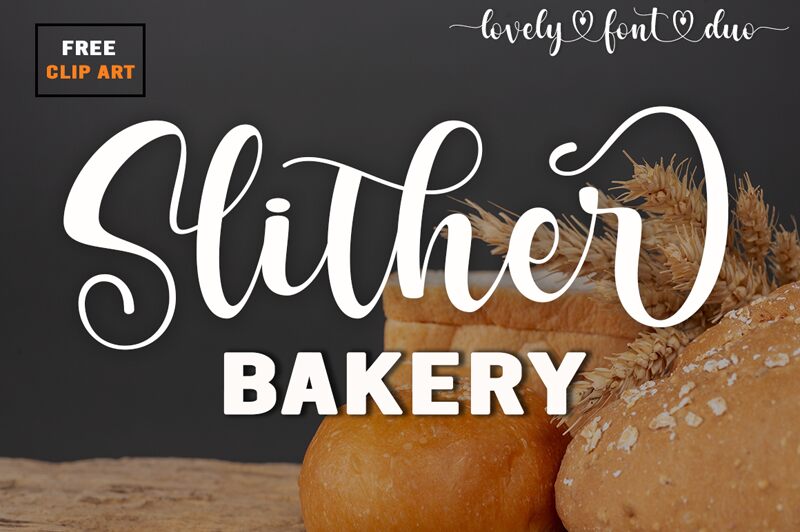
Slither
Slither, a captivating calligraphy font by Fadlilah Studio, offers boundless possibilities for your creative projects. With its exquisite sans serif and script variations, Slither Bakery is perfect for crafting stunning designs.
Whether you're working on branding materials, wedding invitations, or even food packaging, this versatile duo font is sure to impress. Access all the unique glyphs and swashes effortlessly with the PUA encoding feature. Fall in love with Slither's enchanting style and elevate your creations to new levels of elegance and beauty.